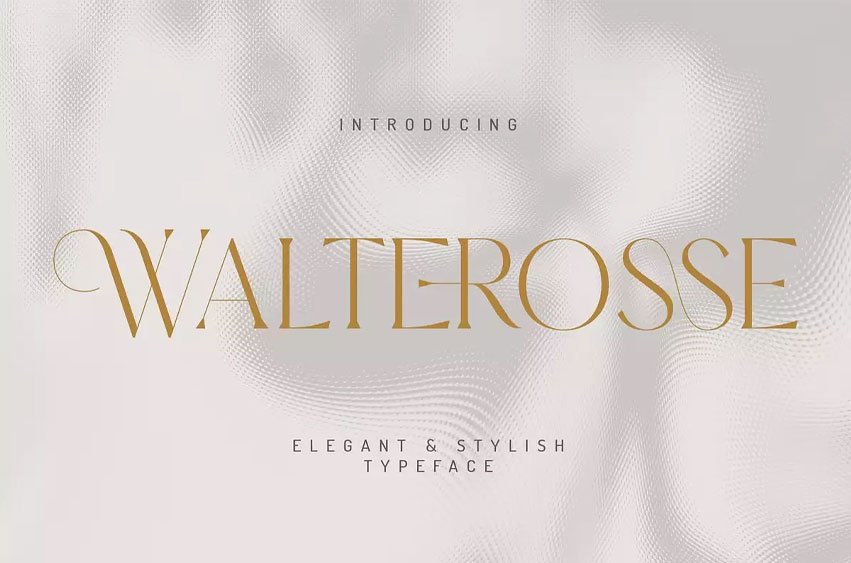
Walterosse Font is a unique font which employs ligatures in order to form very harmonious and fluent connections between the letters. This is the perfect font to use as an accent to wordmark logos, monograms or pull quotes to give a touch of elegance. Comprising of 7 distinct ligatures that can be turned off for normal text use, Walterosse is both functional and stylish.